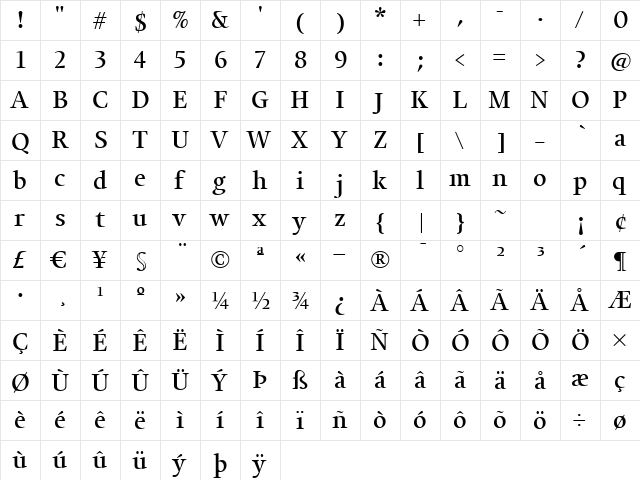
UnionMedium Regular
Design Context for UnionMedium Typeface
UnionMedium offers clean, dependable letterforms without strong stylistic allegiance, making it a practical choice for designers who need flexibility.
Pro Tip: Pair UnionMedium with a font of contrasting weight or personality to build a more expressive typographic hierarchy.